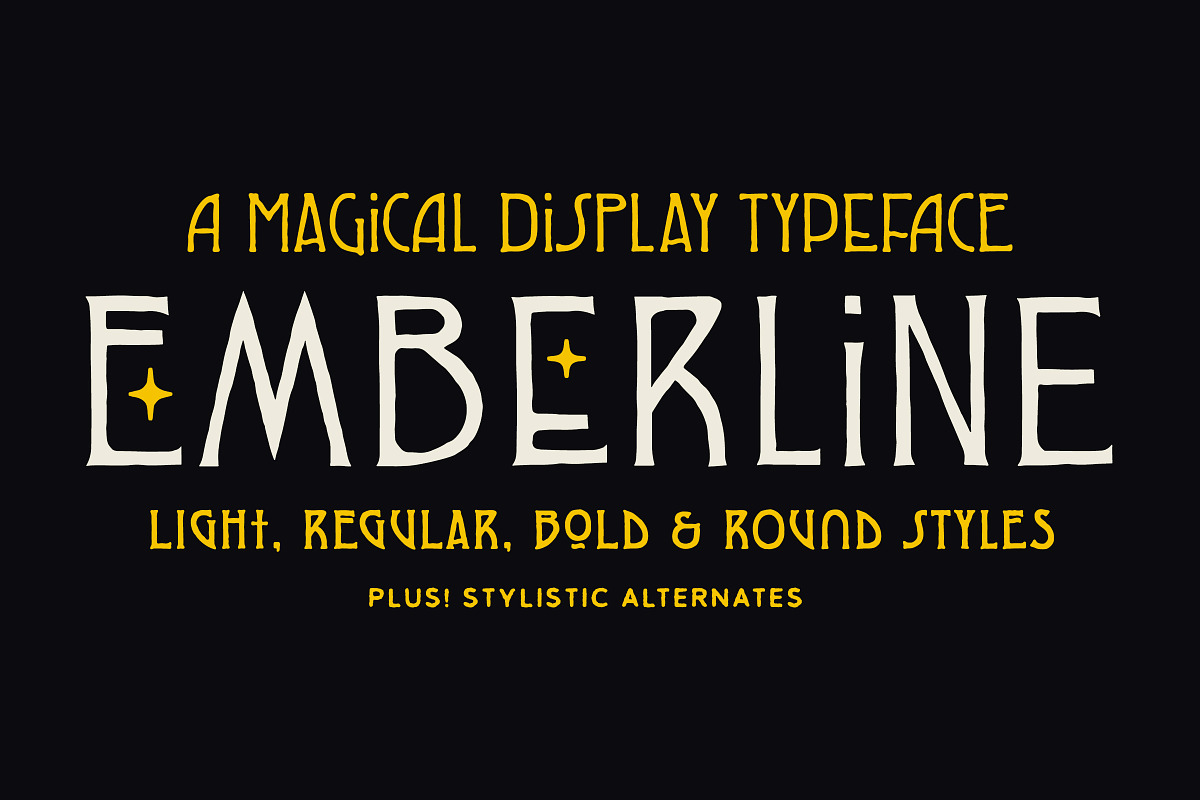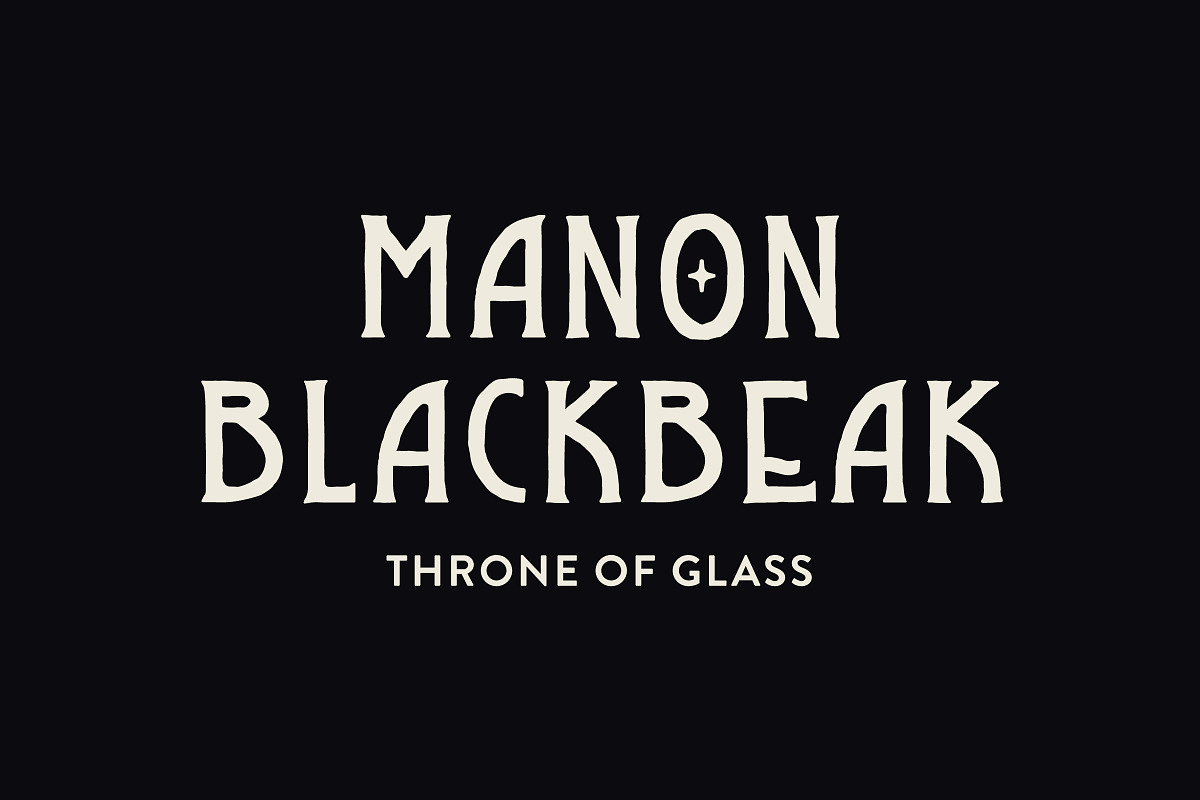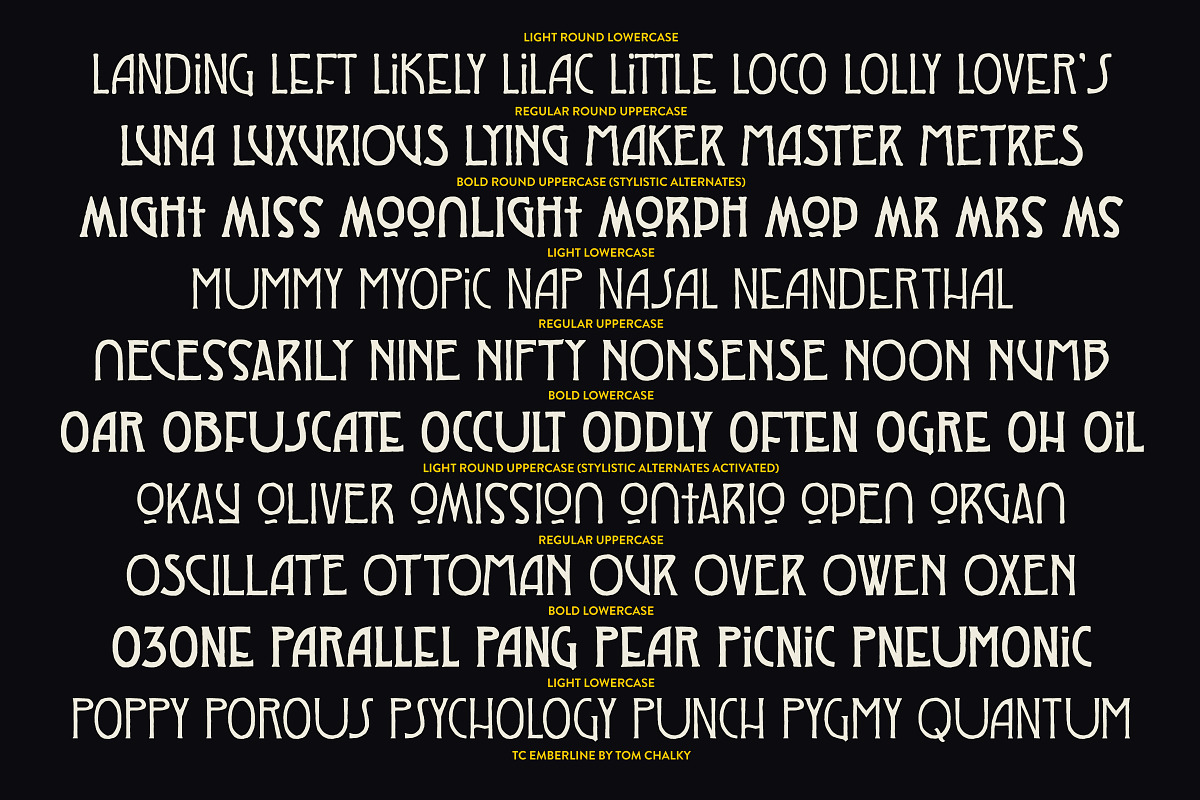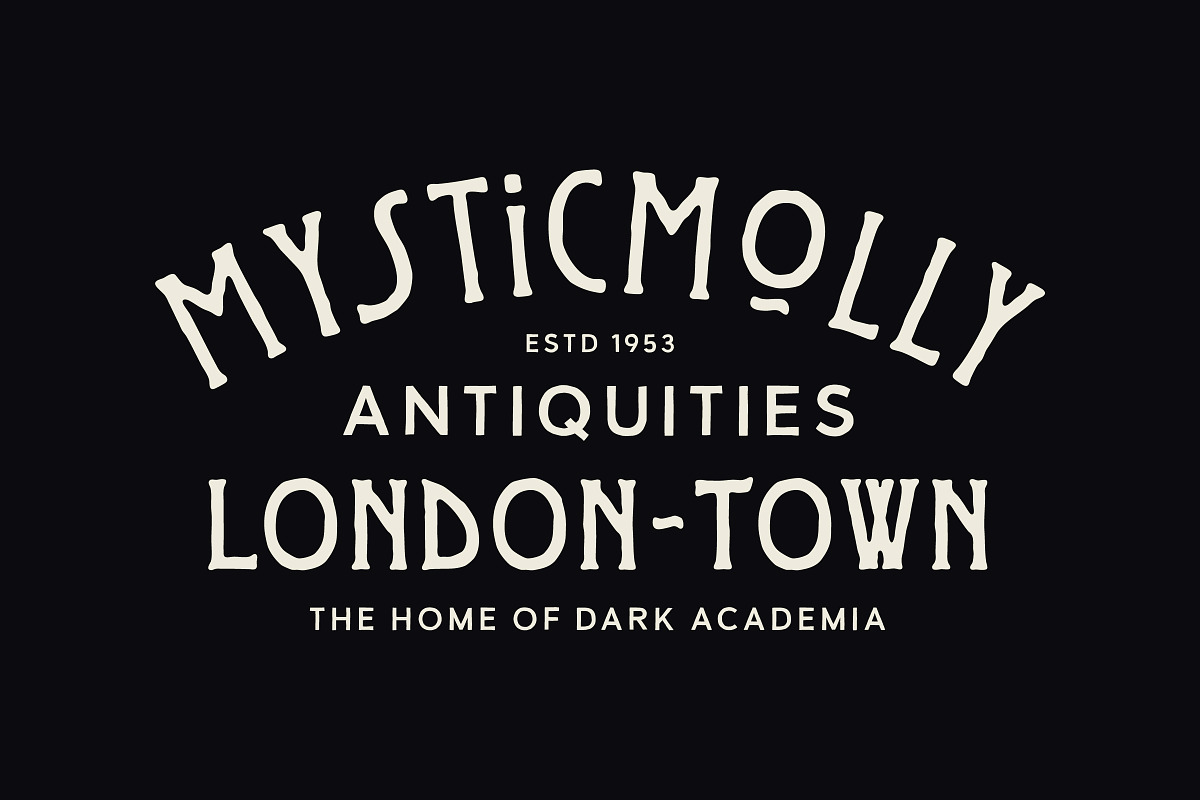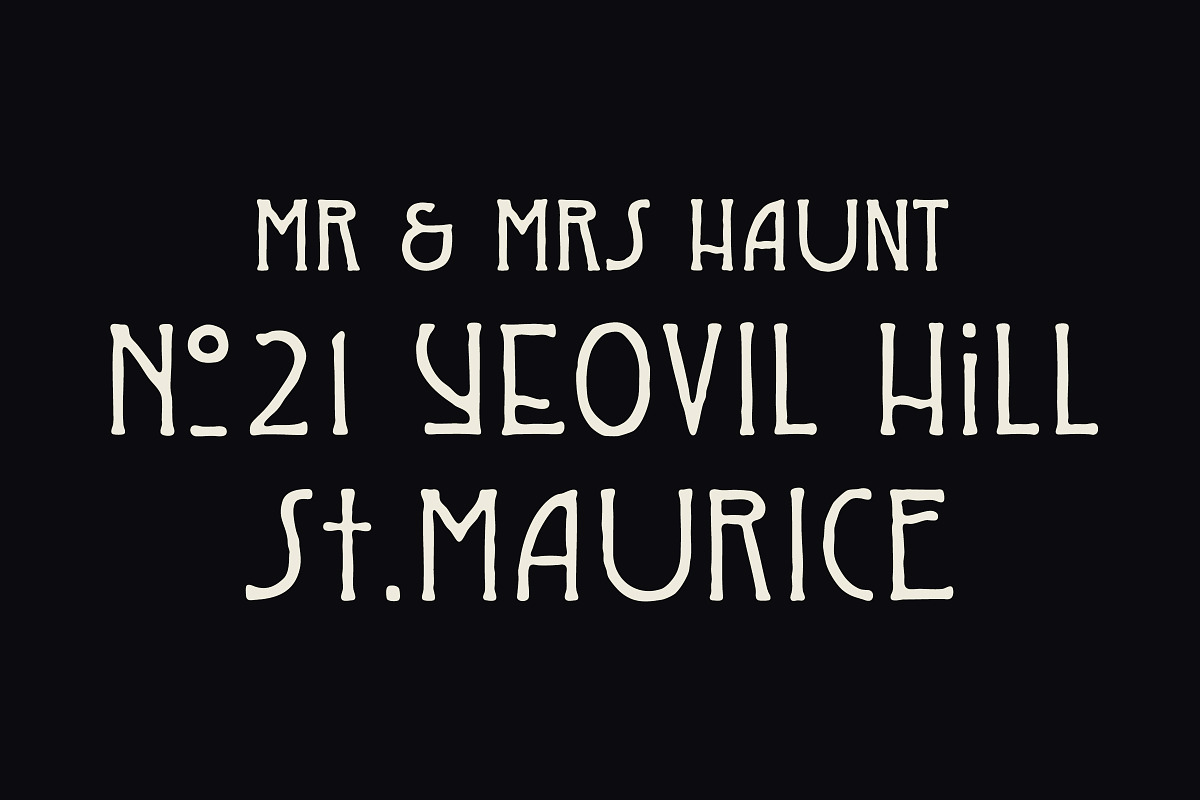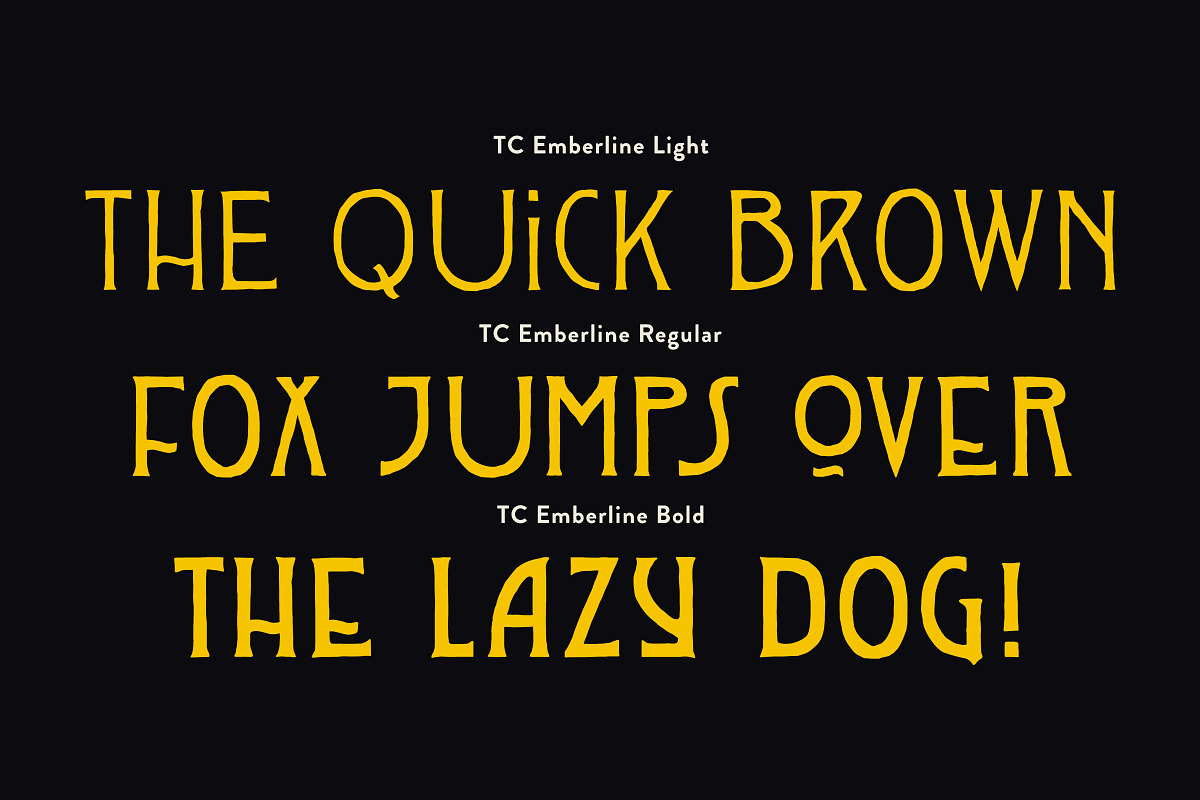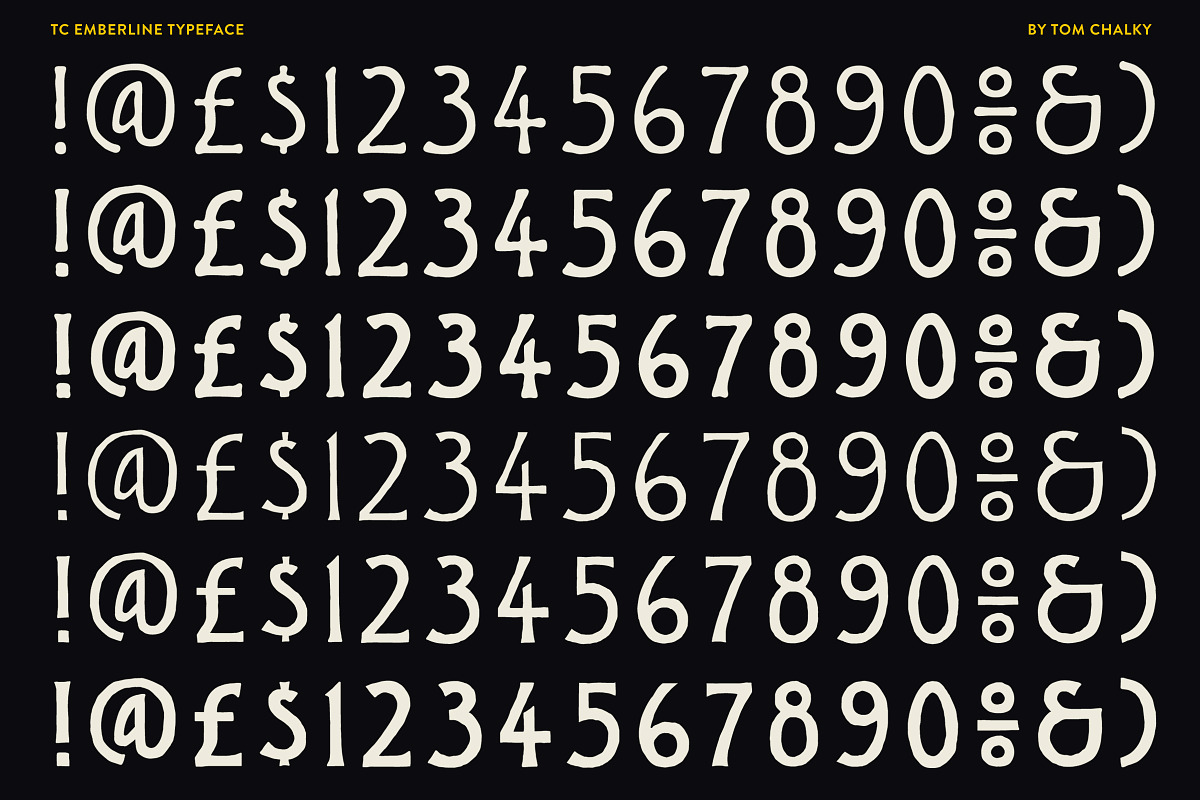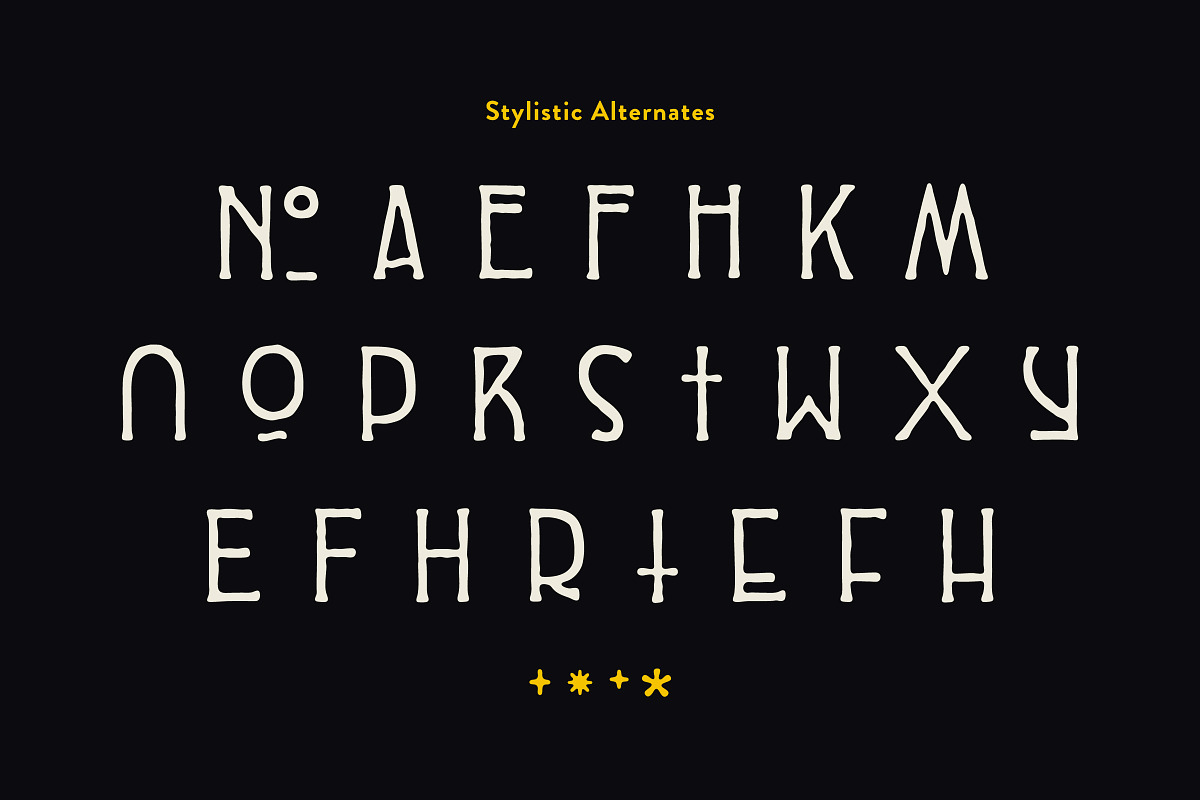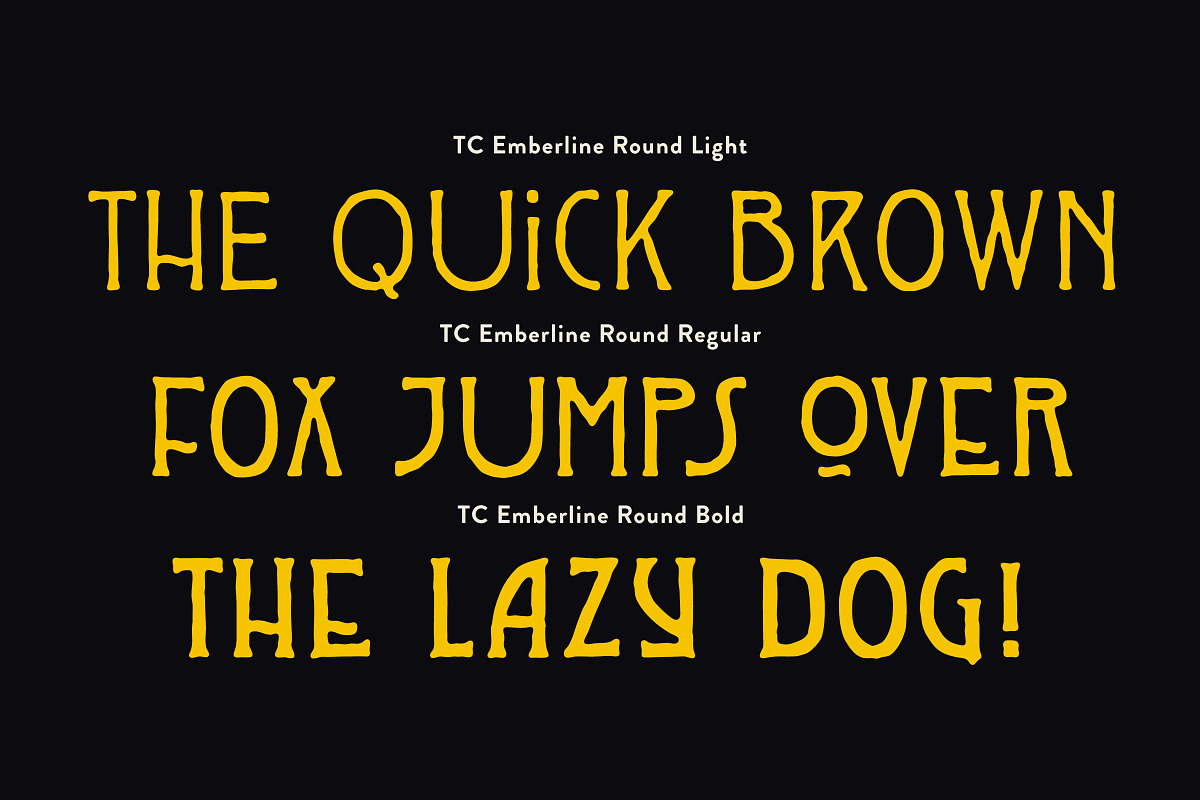
Emberline - A Witchy Display Font
Introducing Emberline – A Magical Display Typeface
Step into a world of wonder with Emberline, a handcrafted display font family that exudes charm, mystery, and a dash of magic. Emberline features light, regular, bold, and round styles, each offering a creative selection of stylistic alternates to further enhance your creative projects.
Inspired by classic folklore and the welcomed rise of dark academia aesthetics, Emberline strikes a perfect balance between elegance and intrigue. Its organic, hand-drawn letterforms bring an authentic touch to any design, making it ideal for:
- Halloween-themed designs
- Dark academia-inspired branding
- Fantasy book covers
- Logo creation for magical businesses
- Quirky posters and signage
- And much more!
Whether you're conjuring up a logo for a mystical shop or setting the tone for a spellbinding event, Emberline is the perfect companion!